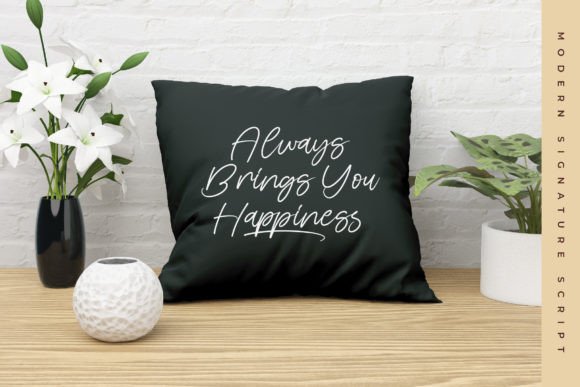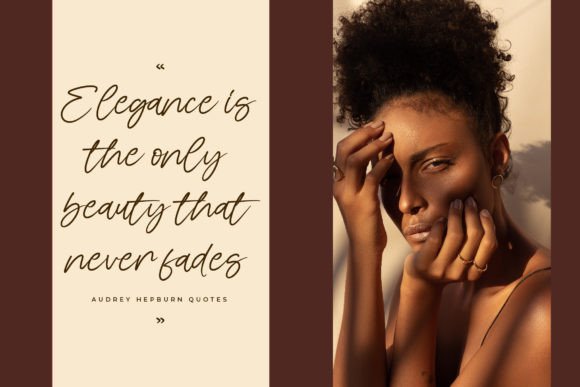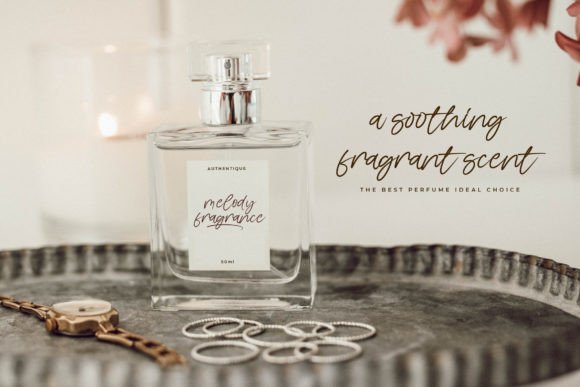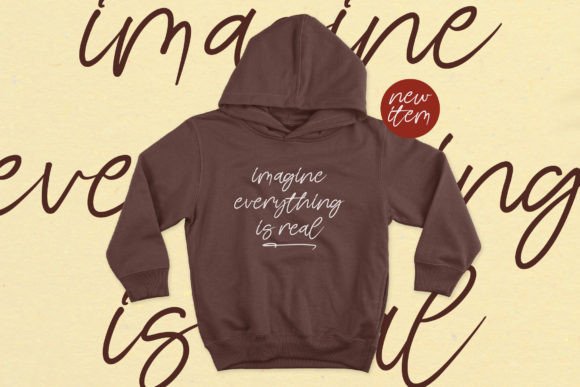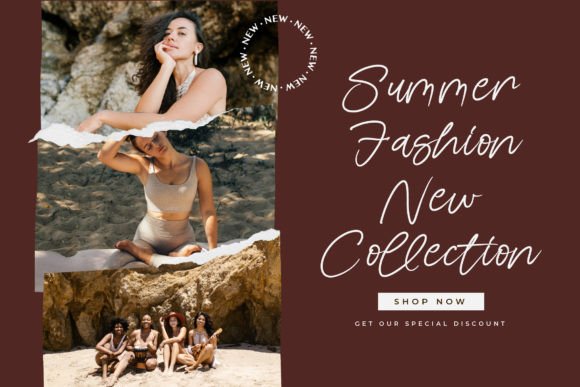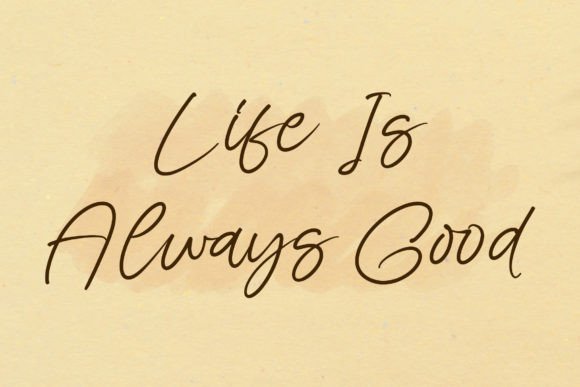
Introducing Bridgetta Font: Elevate Your Designs with Elegance and Sophistication
In the world of typography, a font can make or break a design. For those seeking to add a touch of glamour and sophistication to their projects, Bridgetta Font stands out as an exceptional choice. This stylish and beautiful script font is designed to bring an air of elegance to any design, making it perfect for a wide range of applications, from branding and invitations to packaging and more.
The Beauty of Bridgetta
Bridgetta Font is characterized by its graceful curves and elegant strokes, which together create a visually appealing and refined aesthetic. Its sophisticated design ensures that it can elevate any project, making it stand out in a sea of more mundane typography. Whether you’re working on a luxury brand’s logo, a wedding invitation, or a product label, Bridgetta can add that extra layer of class and sophistication that turns good designs into great ones.
One of the key advantages of Bridgetta Font is its versatility. Its elegant appearance makes it suitable for a variety of design projects. Here are a few ways you can use Bridgetta to enhance your designs:
- Branding: Create a lasting impression with a logo or brand name that exudes luxury and sophistication.
- Invitations: Whether it’s a wedding, birthday, or any other special occasion, Bridgetta can add an elegant touch to your invitations.
- Packaging: Stand out on store shelves with product labels and packaging that look premium and high-end.
- Marketing Materials: Elevate your brochures, flyers, and posters with a font that captures attention and conveys a sense of luxury.
Bridgetta Font comes with PUA (Private Use Area) encoding, a feature that makes it incredibly user-friendly. PUA encoding means that all glyphs and swashes are easily accessible, allowing designers to experiment with different styles and combinations without hassle. This feature is particularly beneficial for designers who want to add a personal touch to their work without getting bogged down in complicated font management.
Why Choose Bridgetta Font?
With so many fonts available, why should Bridgetta be your go-to choice? Here are a few compelling reasons:
- Elegance: Bridgetta brings an unmatched level of elegance to any design.
- Versatility: Its wide range of applications makes it a valuable addition to any designer’s toolkit.
- User-Friendly: PUA encoding ensures that you can access all glyphs and swashes easily.
Tips for Using Bridgetta Font
To get the most out of Bridgetta Font, consider the following tips:
- Pair it Wisely: Bridgetta pairs well with clean sans serif fonts for a modern look or with serif fonts for a more traditional feel.
- Experiment with Sizes: Playing with font sizes can help emphasize key points and create visual hierarchy in your designs.
- Make Use of Swashes: Don’t be afraid to get creative with the swashes and glyphs available thanks to PUA encoding.
Bridgetta Font is more than just a script font; it’s a tool for designers and crafters looking to add a touch of elegance and sophistication to their projects. With its graceful curves, elegant strokes, and PUA encoding for easy access to glyphs and swashes, Bridgetta stands out as a versatile and beautiful choice. Whether you’re designing for luxury brands, creating special occasion invitations, or simply looking to elevate your design game, Bridgetta Font is an excellent addition to your typographic arsenal.
So why settle for ordinary when you can make your designs extraordinary with Bridgetta Font? Explore its potential today and discover how it can transform your work.